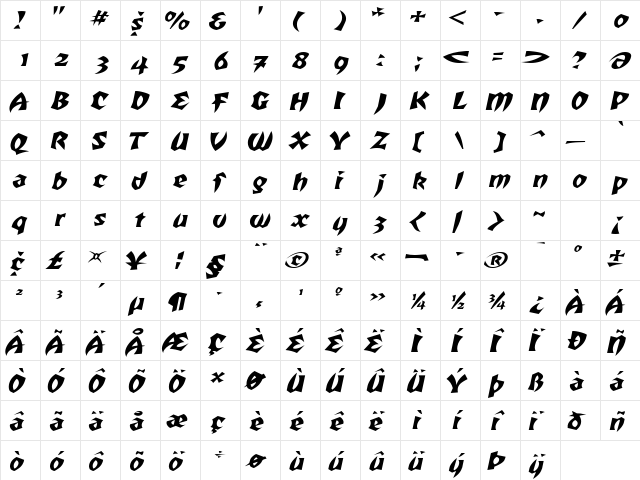
RemusExtended Italic Font Preview
RemusExtended Italic
Design Context for RemusExtended Typeface
RemusExtended is a composed and adaptable typeface that performs quietly and consistently across a wide range of design contexts. Its italic angle brings a sense of urgency and motion to the letterforms.
Pro Tip: Try RemusExtended for annotation and caption copy alongside an upright companion — the contrast in angle creates a dynamic but ordered typographic system.